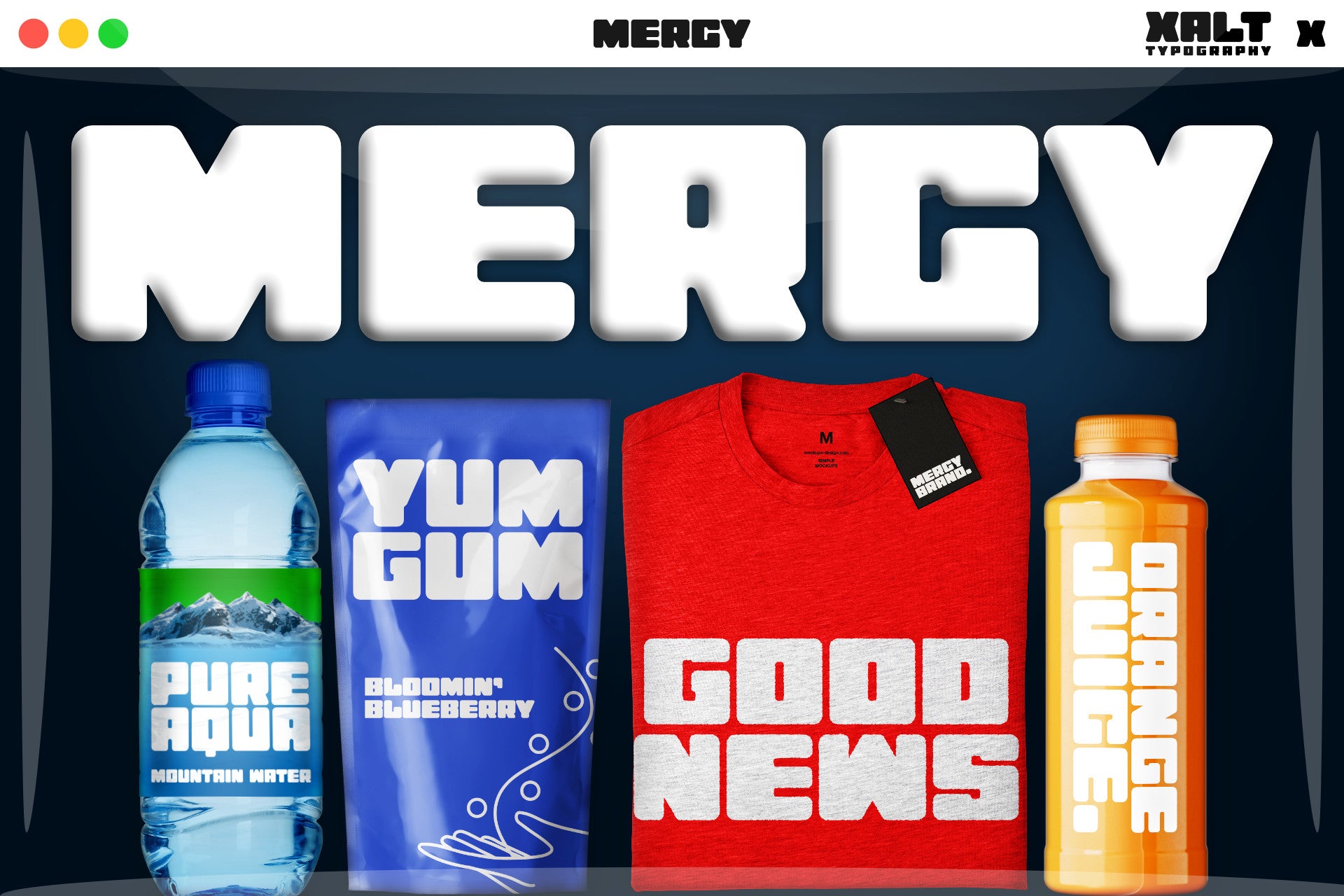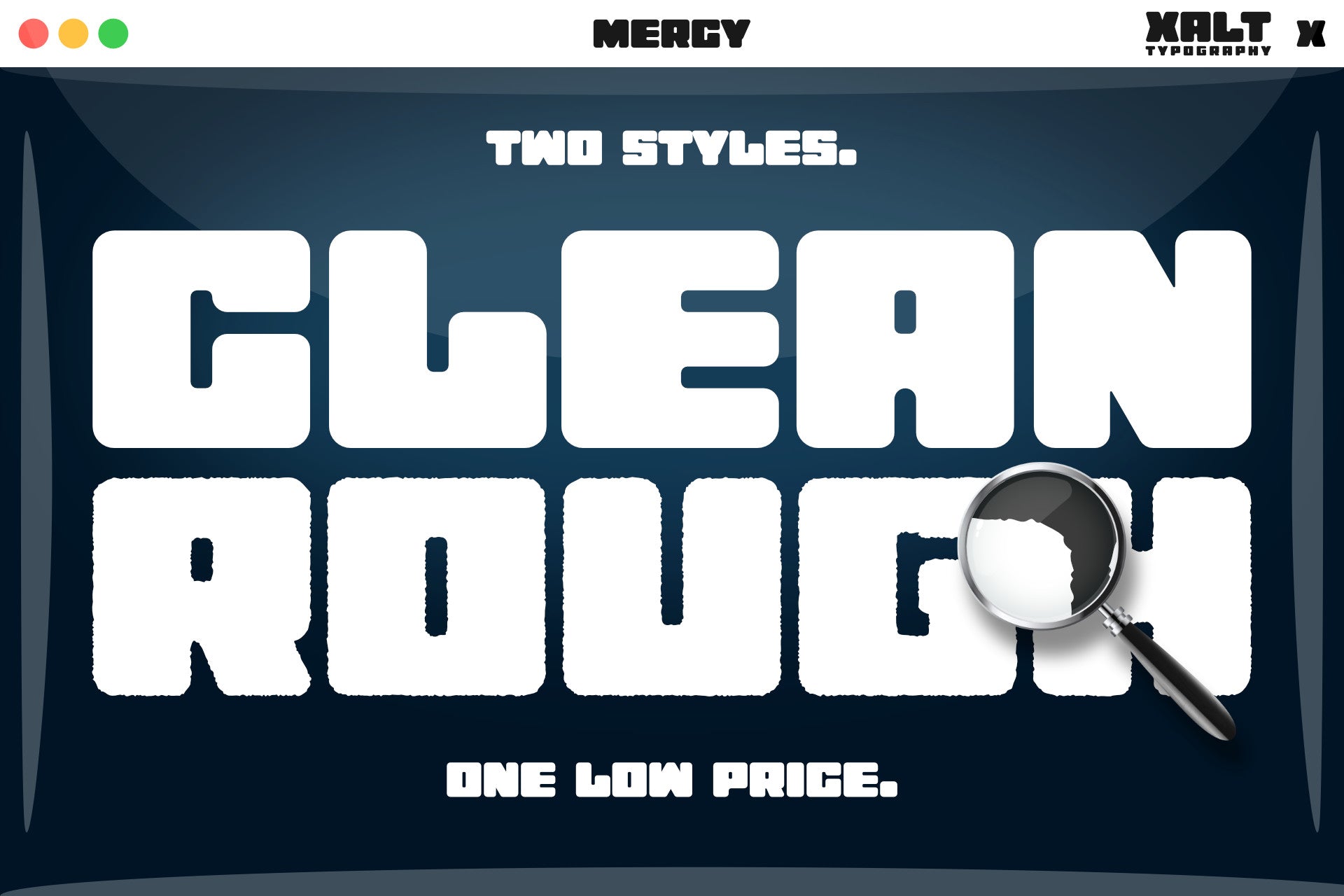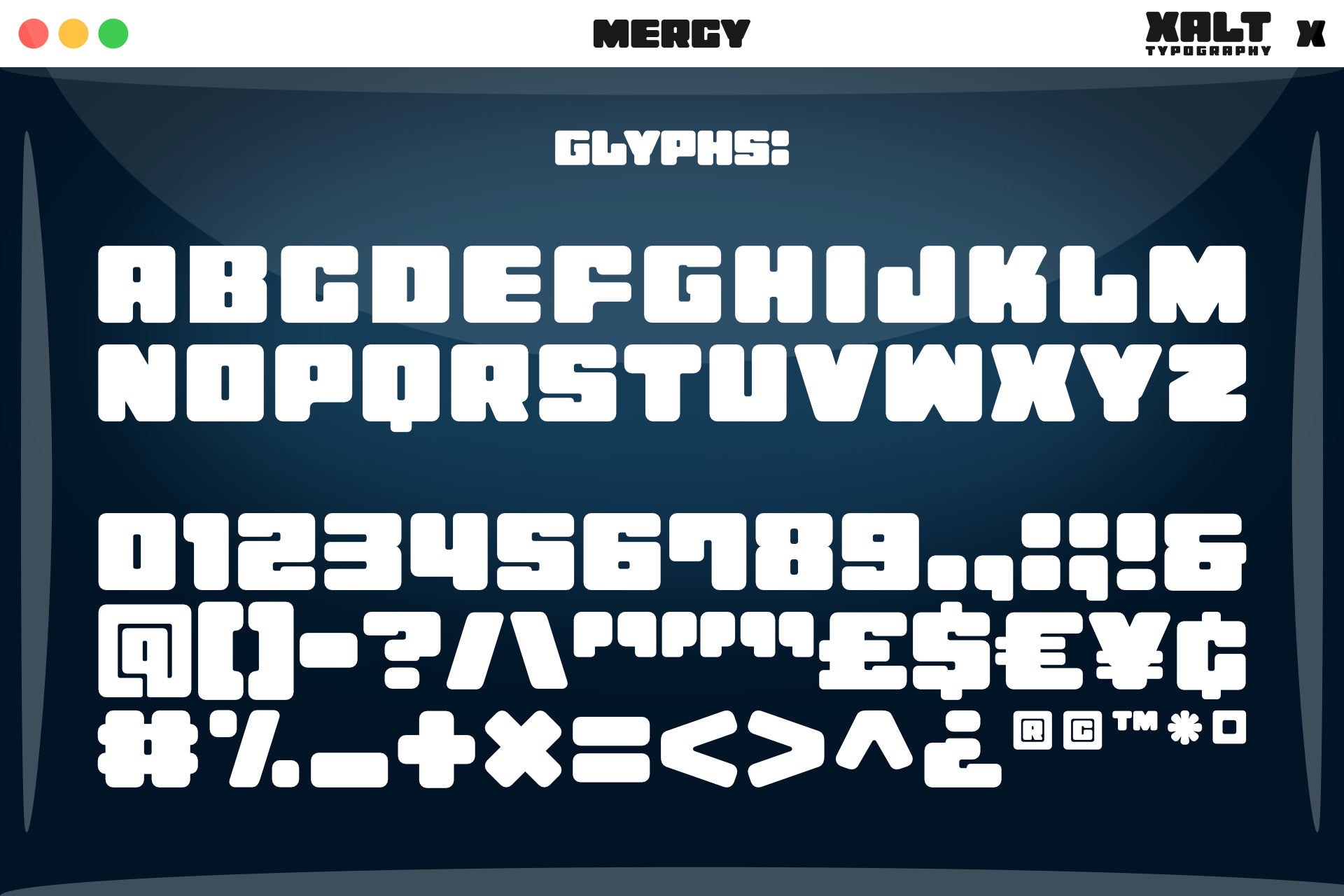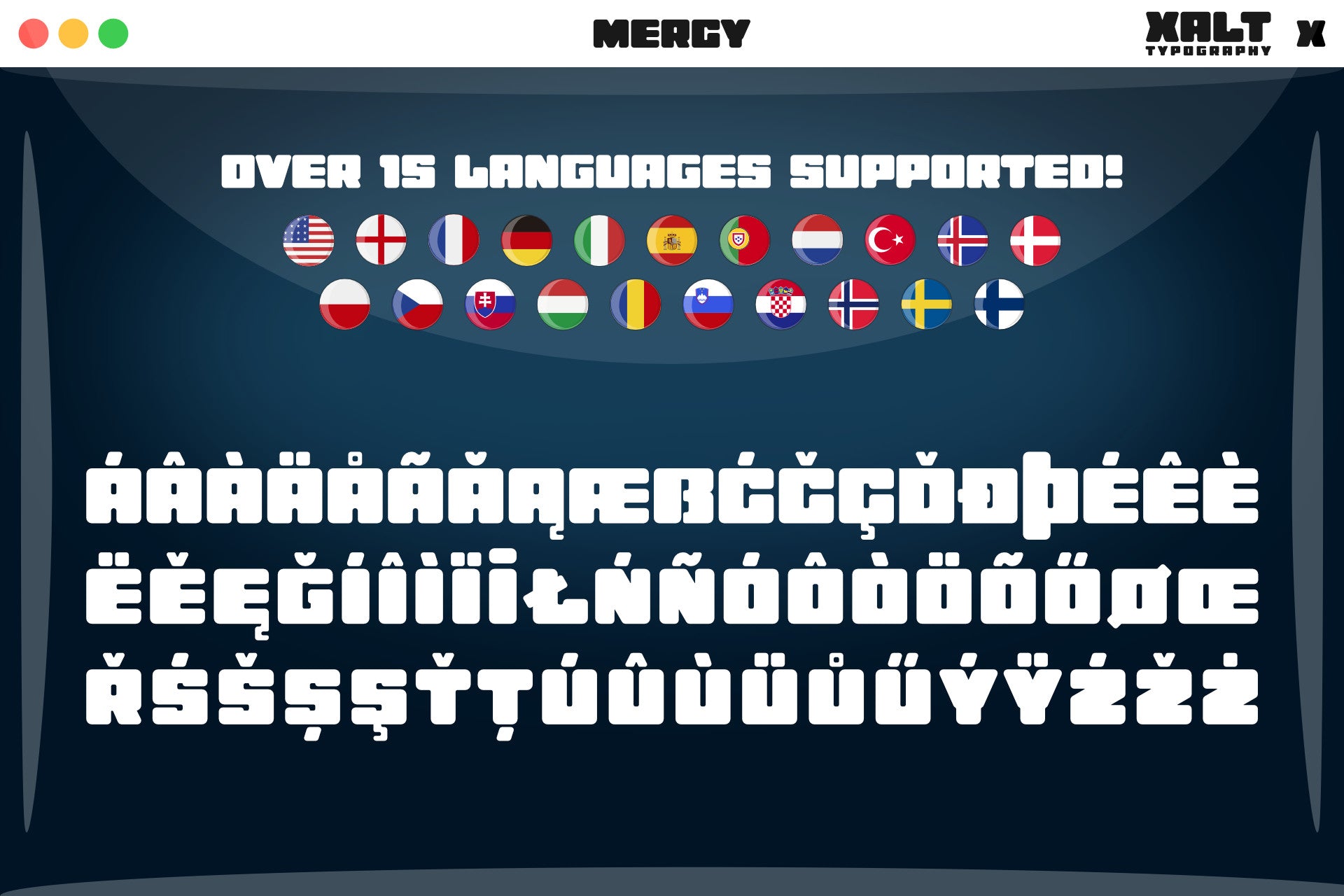
FEATURES • Available in two powerful styles (Regular + Rough) for ultimate versatility • Over 200 carefully crafted glyphs per style (400+ total), including useful alternates • Supports 15+ languages for wide-reaching use • Designed with precision – consistent spacing, clean curves, and a fresh modern feel • Looks stunning at any size – perfect for attention-grabbing titles, sharp logos, or clean body text • Affordable – Achieve pro designs without breaking the bank! • Built to look amazing, whatever you type!
MERCY is an excellent choice for T-shirt designs, merchandise graphics, logos, posters & print, social media visuals, promotional materials, publications, greeting cards, crafts and more!